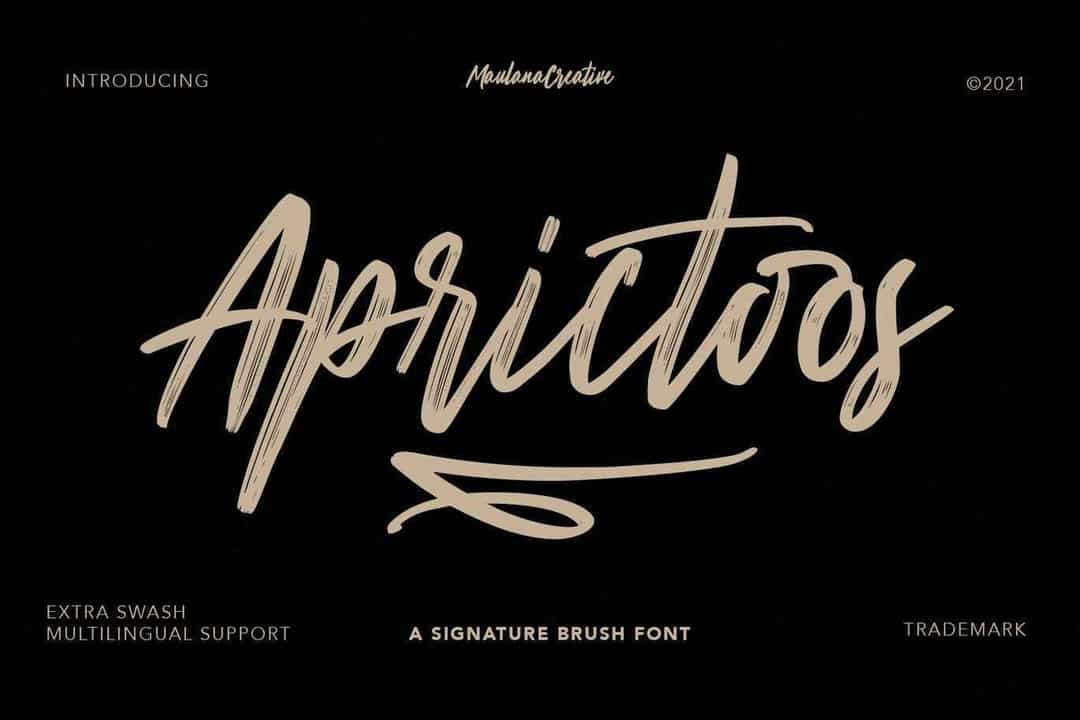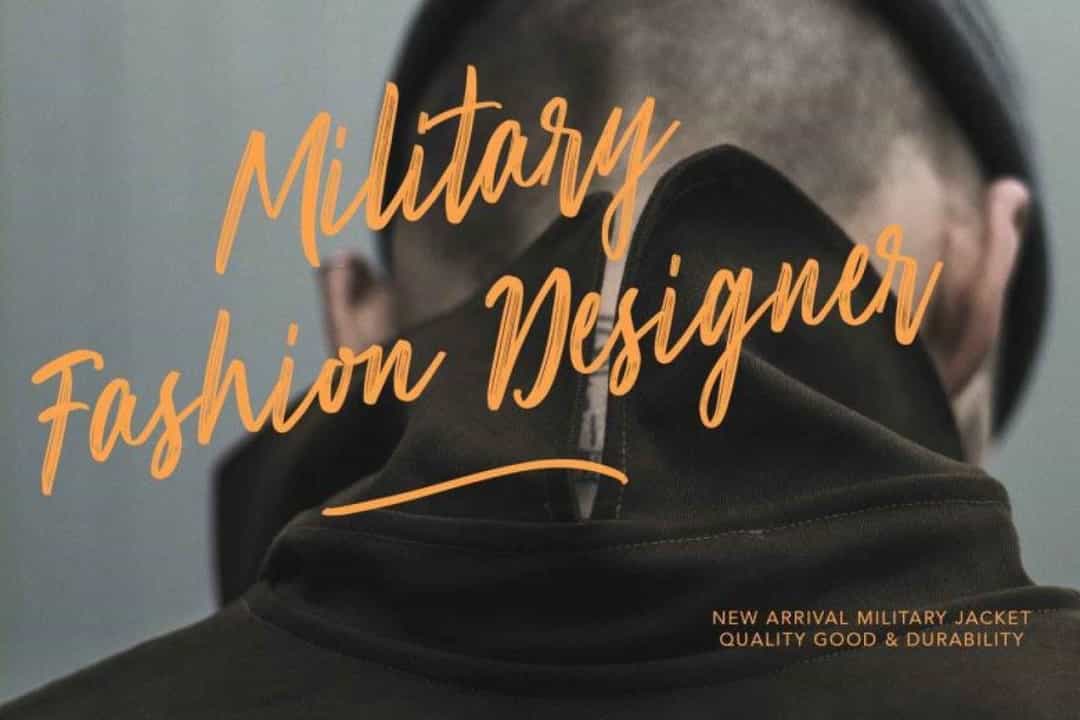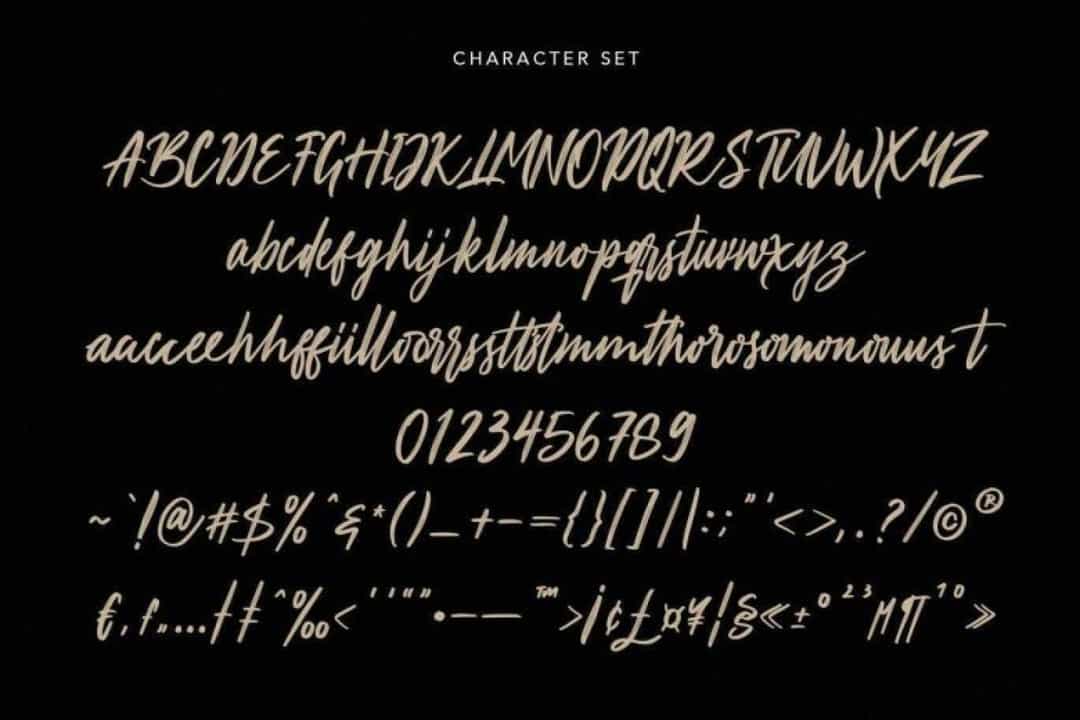
Aprictoos is an iconic brush font designed with modern, casual and smooth brush strokes in mind. Featuring open type font with Ligatures support for over 100 languages it makes Aprictoos perfect for logos, movie titles, book titles and any other awesome project you may have in mind – creating stunning designs with the Aprictoos font is now easy!